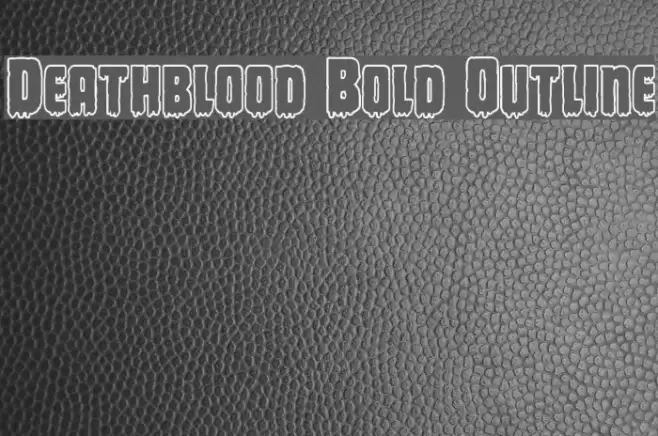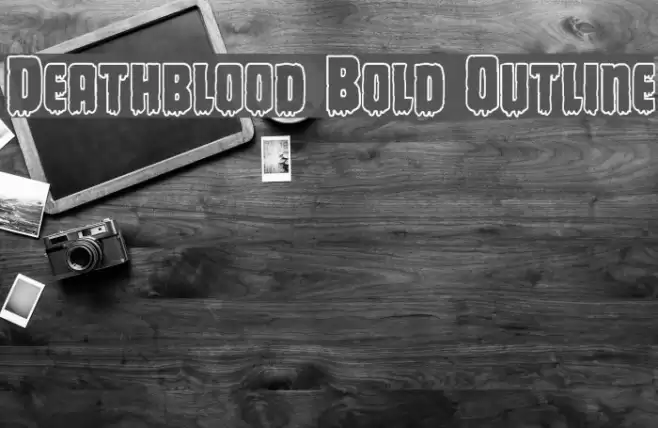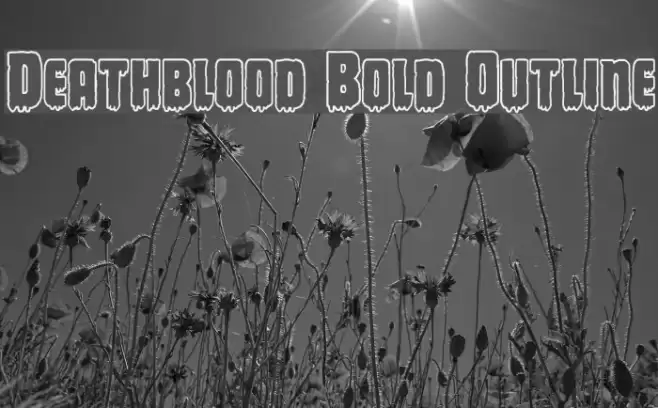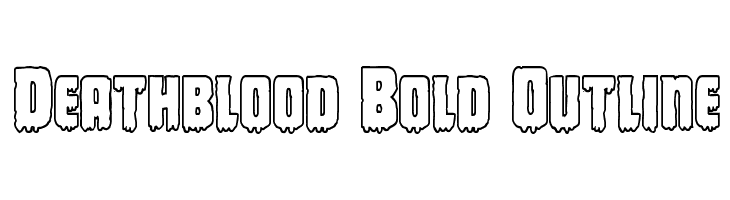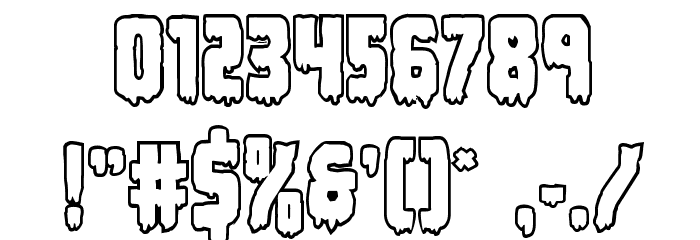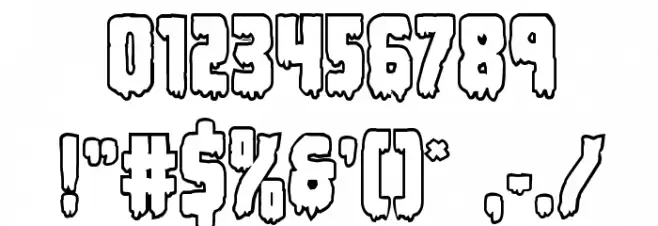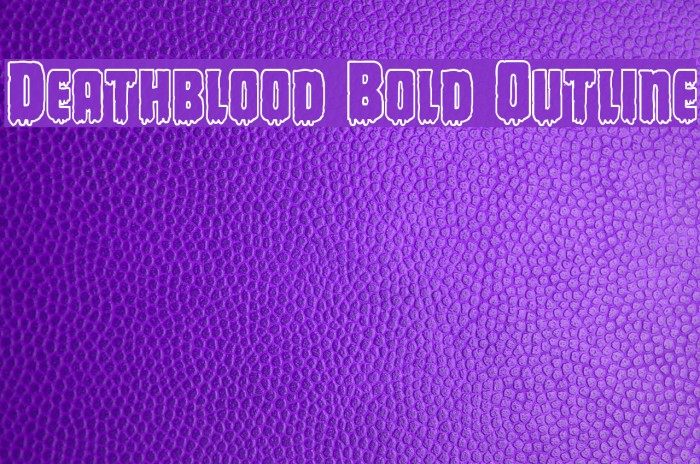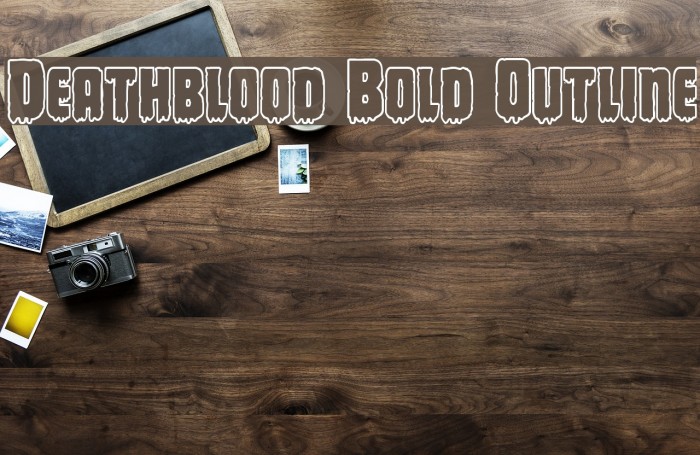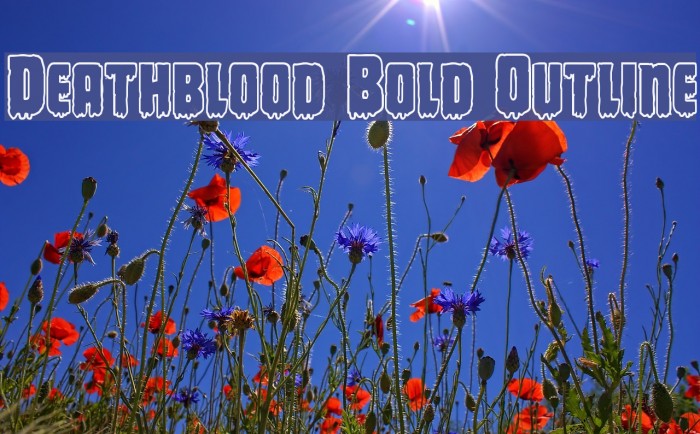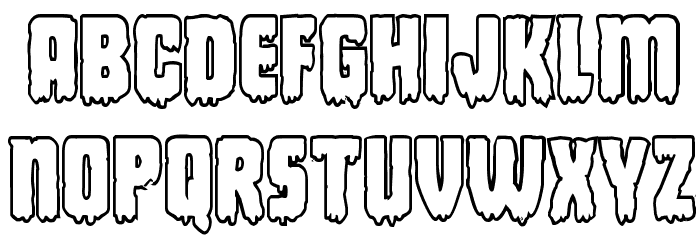
Deathblood Bold Outline Font
Deathblood Bold Outline Description
This font features a bold, outlined style with a dripping effect that gives it a spooky, horror-themed appearance. The characters are uppercase and have a consistent thickness, with the outline adding a dimensional aspect. The design is reminiscent of classic horror movie posters, making it ideal for projects that require a dramatic and eerie touch. The font's unique style is both eye-catching and memorable, with a playful yet sinister vibe. It maintains legibility despite its decorative elements, making it versatile for various creative applications.
A bold, outlined font with a dripping, horror-themed style from Uncategorized fonts.
- Proposed Projects: Ideal for Halloween-themed designs, horror movie posters, spooky event invitations, and themed merchandise.